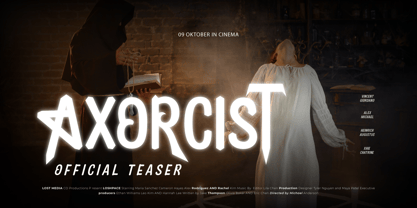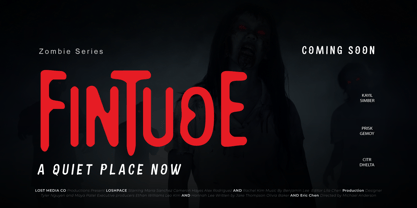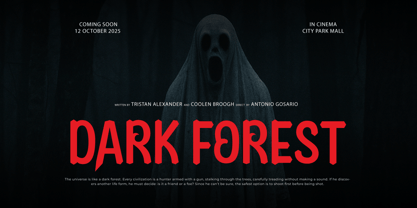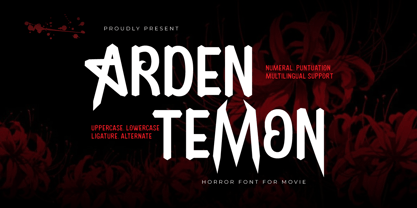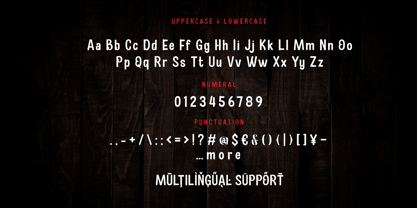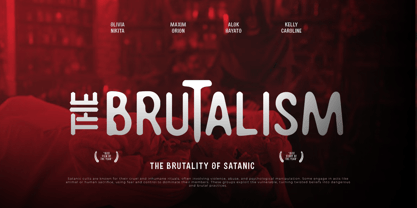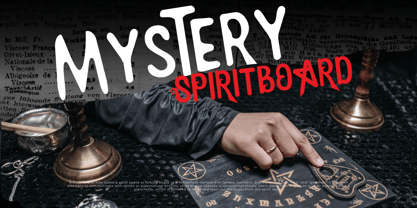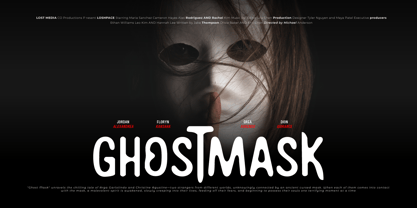
Ardentemon
by Twinletter
The Ardentemon Font Family was designed by Rozikan and published by Twinletter. Ardentemon contains 3 styles and family package options. More about this family
Introducing Ardentemon, a terrifying horror movie font that embodies fear and suspense in every letter. Designed with sharp edges, irregular strokes, and a chilling atmosphere, Ardentemon is the perfect typeface for horror-themed posters, thriller movie titles, spooky invitations, Halloween designs, and more.
This font exudes a sinister energy that immediately captures attention and sets the tone for mystery and dread. Its aggressive, jagged letterforms evoke a sense of danger, making it ideal for projects that demand a bold, unsettling impact. Whether you're crafting eerie promotional materials or branding for horror content, Ardentemon will bring your scariest visions to life.